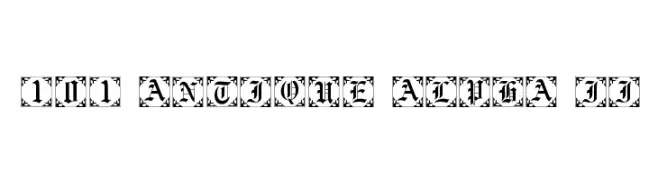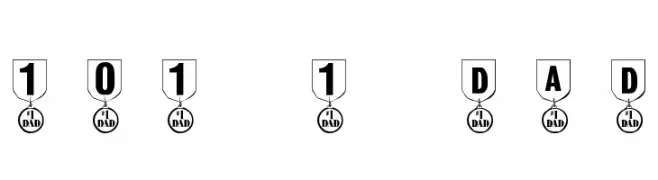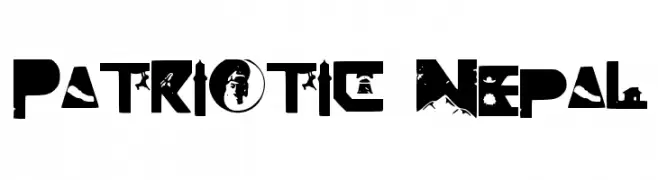
An ornate, blackletter-style font with decorative floral frames.
A decorative font with bold letters and angelic figures, ideal for festive designs.
Display font using ancient Greek pottery and motifs as characters.
A playful, illustrative font with embedded images for each character, ideal for educational use.
A bold, abstract font with artistic and creative elements in each character.
A bold, decorative font with rose illustrations on each character.
A whimsical font with each character depicted as a unique ghost illustration.
A decorative font with characters enclosed in medal-like shapes, perfect for playful designs.
A bold, decorative font with Nepalese cultural elements and landmarks.